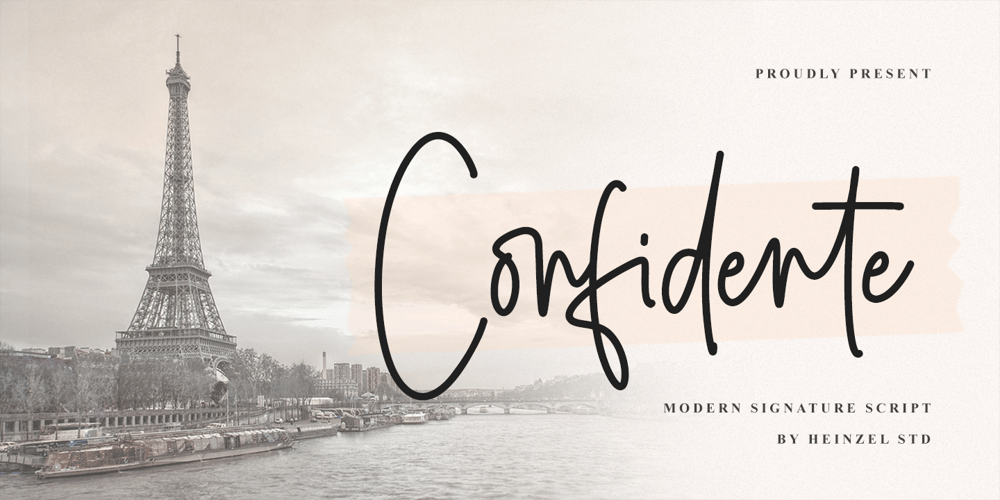
Confidente Font Family was designed by Nofi Sofyan Hadi and published by Heinzel Std. Confidente contains 1 styles and family package options. Confidente is a flowing handwritten font, described by an elegant touch, perfect for your favorite projects. It looks stunning on wedding invitations, thank you cards, quotes, greeting cards, logos, business cards and every other design which needs a handwritten touch. Fall in love with its incredibly distinct and timeless style and use it to create spectacular designs!What’s Included : Web Font PUA Encoded Multilingual Support